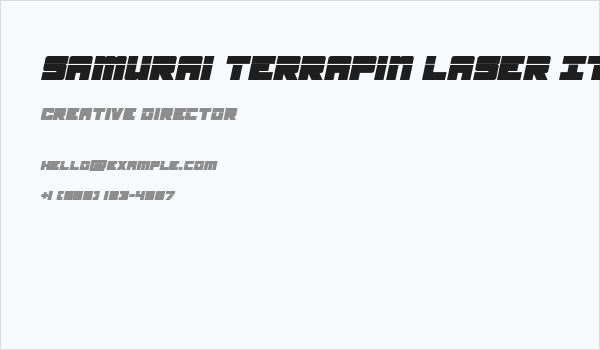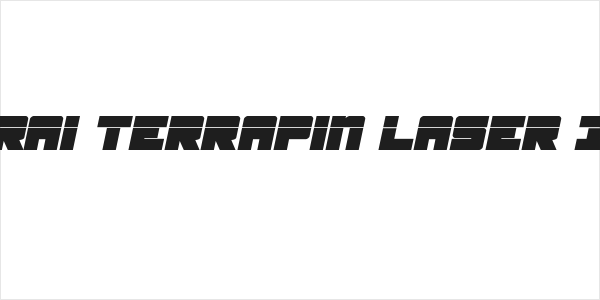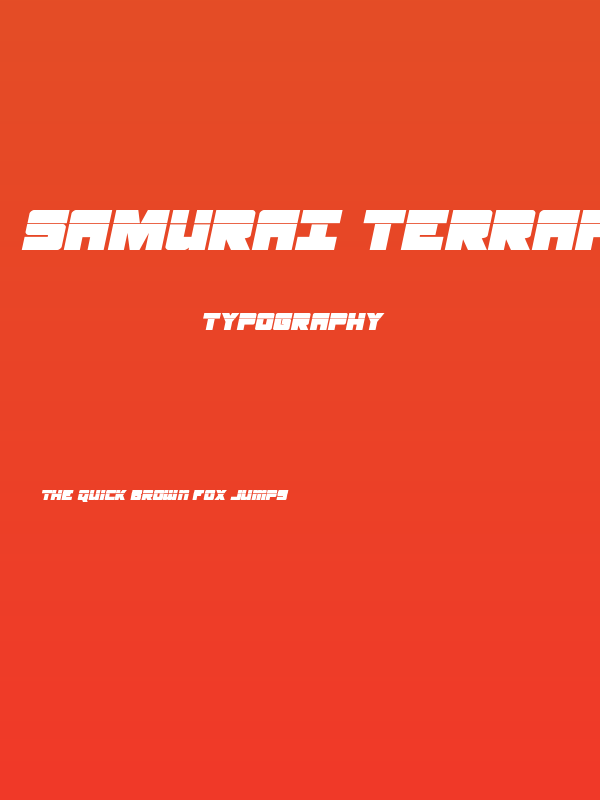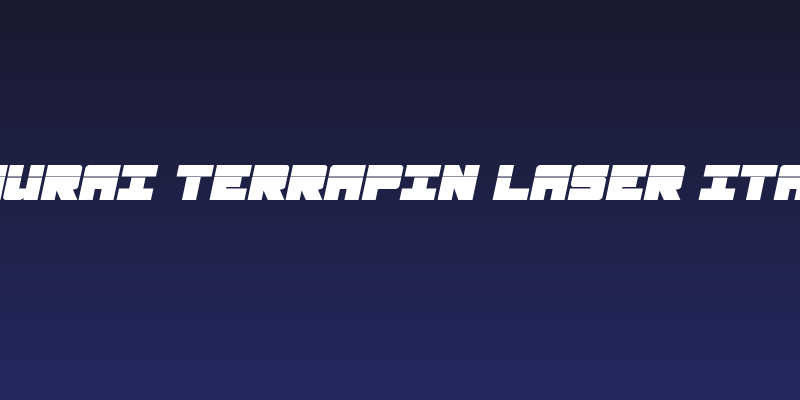
Samurai Terrapin Laser Italic Font
Samurai Terrapin Laser Italic Description
This font features a bold and futuristic design with a strong geometric influence. The characters are wide and blocky, with sharp angles and a distinct slant that gives it an italicized appearance. The uppercase and lowercase letters maintain a consistent style, emphasizing a sense of speed and modernity. The numbers and special characters are designed to match the boldness and angularity of the alphabet, making them stand out prominently. This font is ideal for projects that require a dynamic and impactful visual presence.
| Proposed Projects | Ideal for sci-fi themed projects, video game titles, tech branding, and dynamic poster designs. |